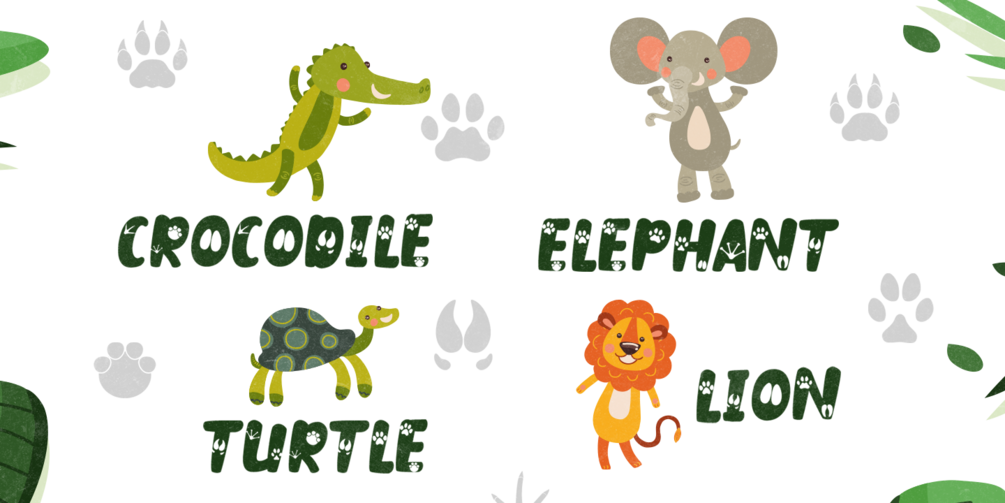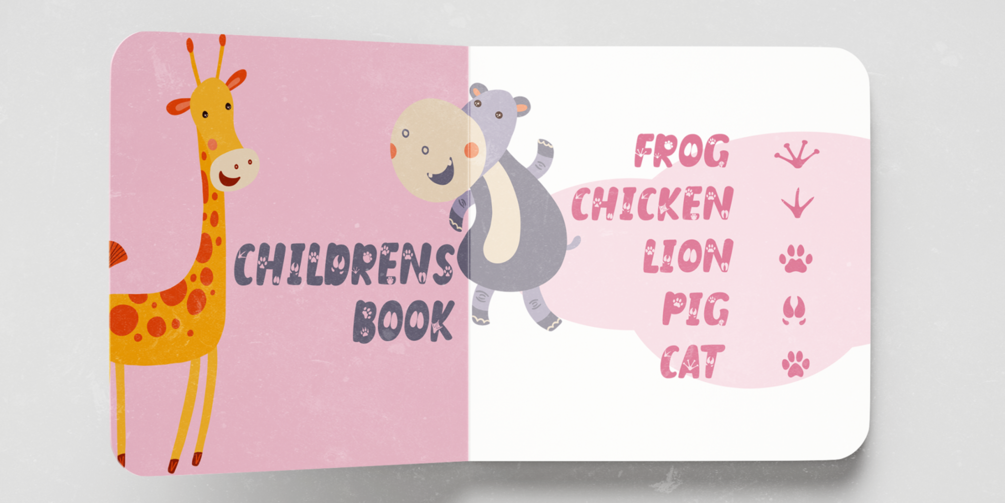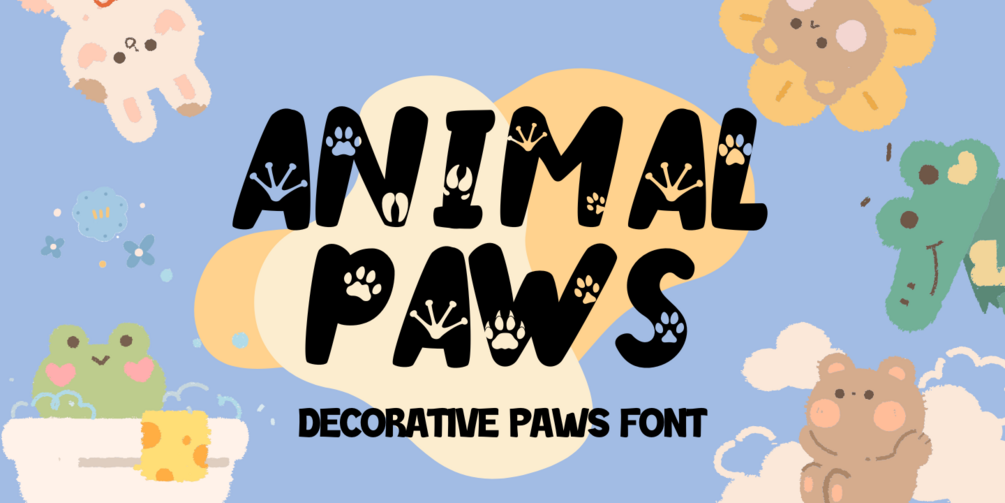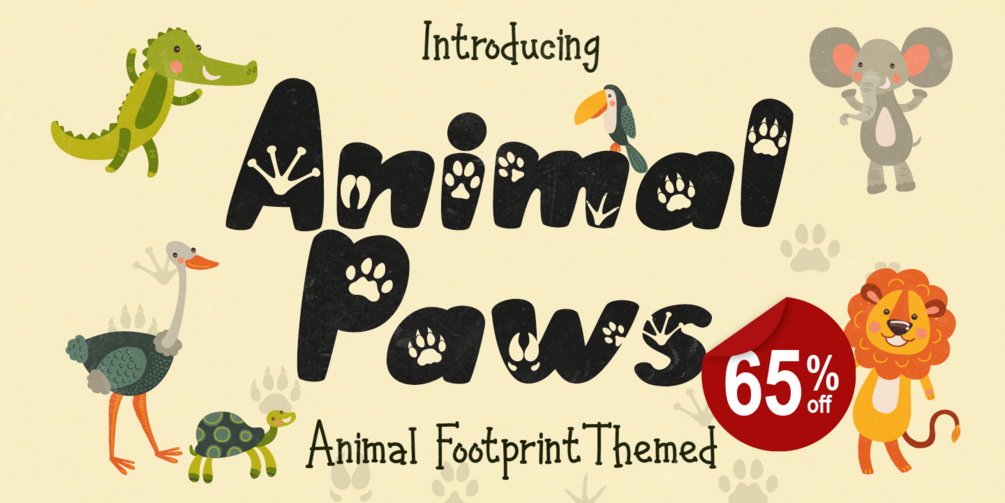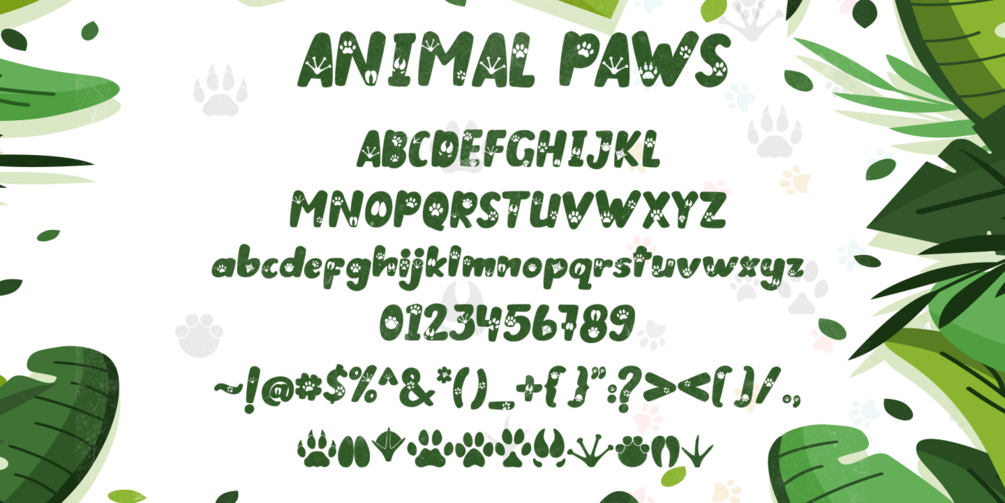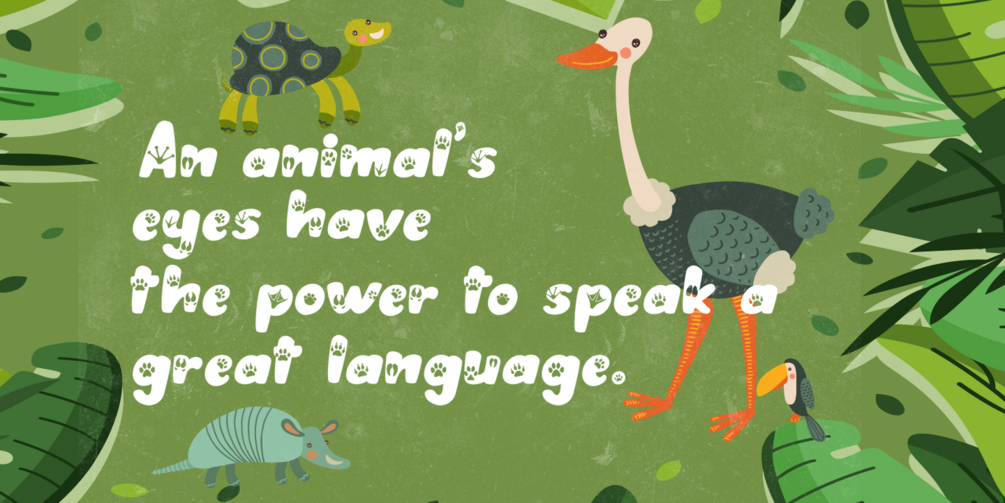
Animal Paws - Decorative Font
Animal Paws brings the perfect blend of fun, quirkiness, and authenticity. This enchanting handwritten font is ready to turn any creative idea into a true standout. With Animal Paws, your design projects will leap to the next level—whether it’s for playful crafts, children’s books, adorable kids' t-shirts, and so much more!
- Adorable Alternate Paws Characters
Say goodbye to ordinary designs and welcome unlimited creativity with Animal Paws!